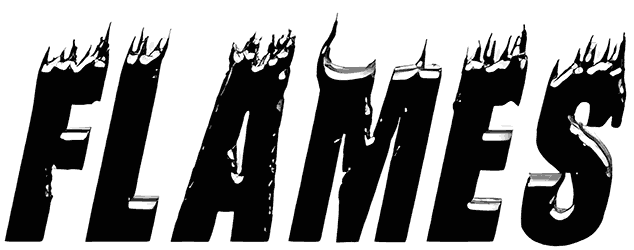
Flames Font
Put the writings on fire and convey the excitement to your viewers. Flames is a fire font that has a decorated sans serif face with flares on the top, but it doesn’t have lowercase, numerals, or punctuation with its own pattern. This fancy font could show many creative designs, such as flyers, tattoos, foregrounds, and others with an exotic and ebullient mood.